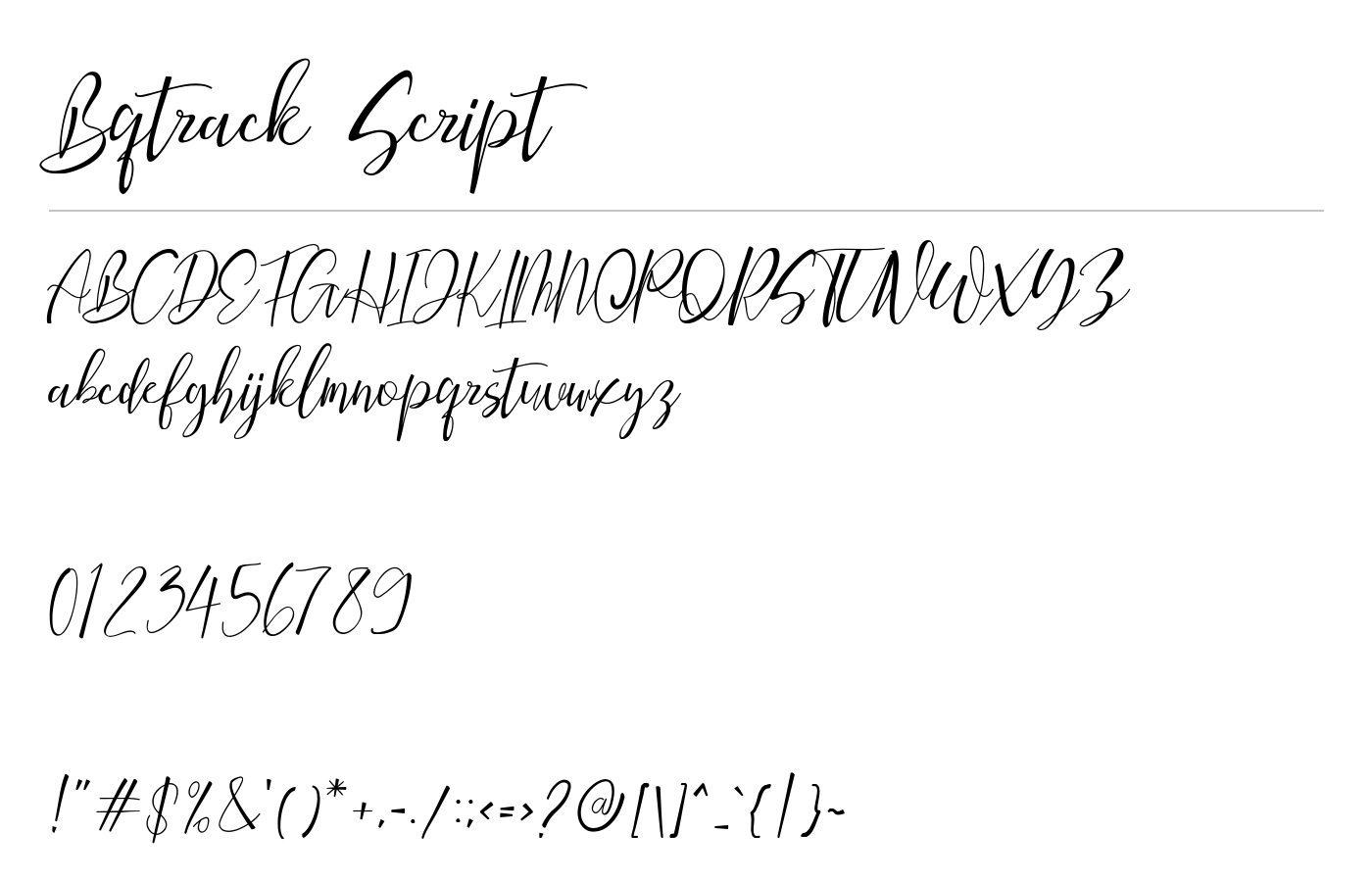
Bqtrack Script is a delicate and elegant handwritten font characterized by its slender, flowing strokes and graceful letterforms. Its tall, narrow letters with subtle variations in thickness lend a sophisticated and modern feel, making it ideal for stylish branding, invitations, and creative headlines where a touch of refined personality is desired. This font works best in designs that need an artistic yet readable script that conveys elegance and charm.
Bqtrack Script Font
About Bqtrack Script Font